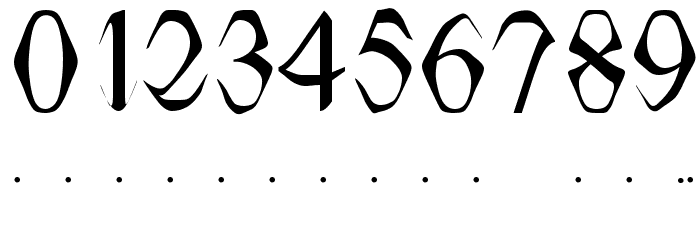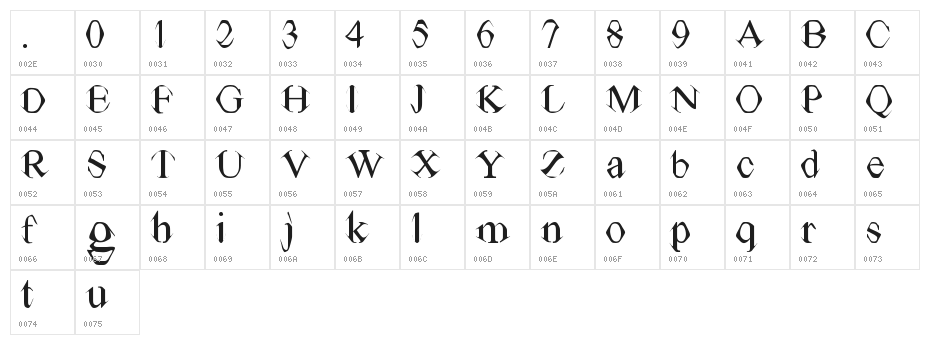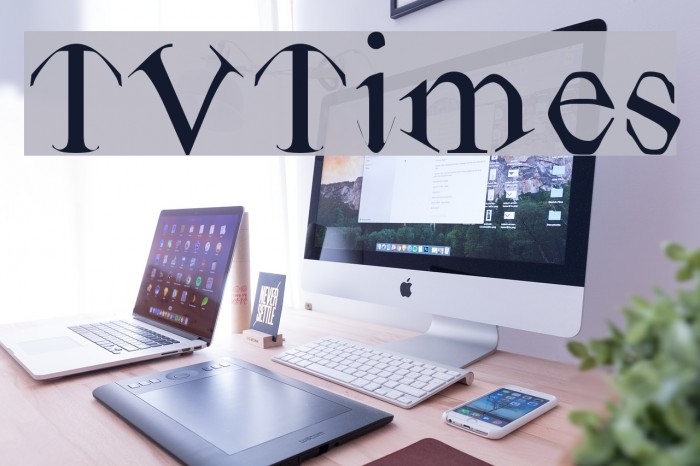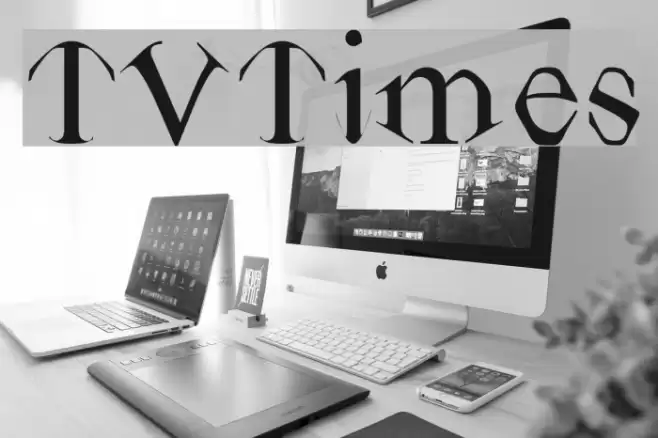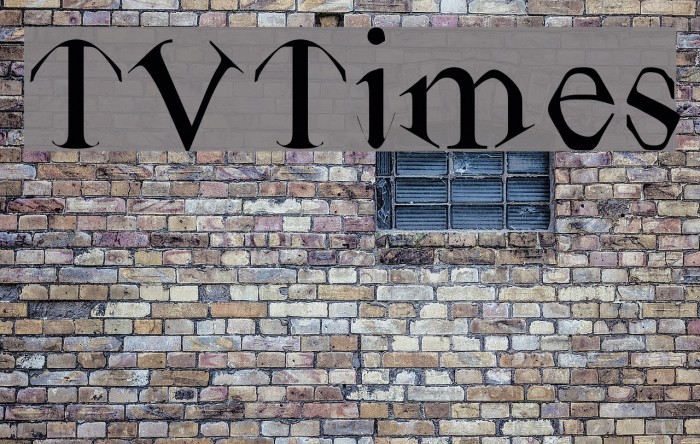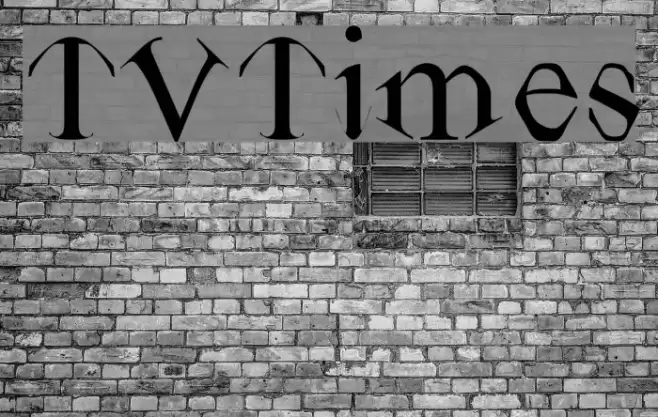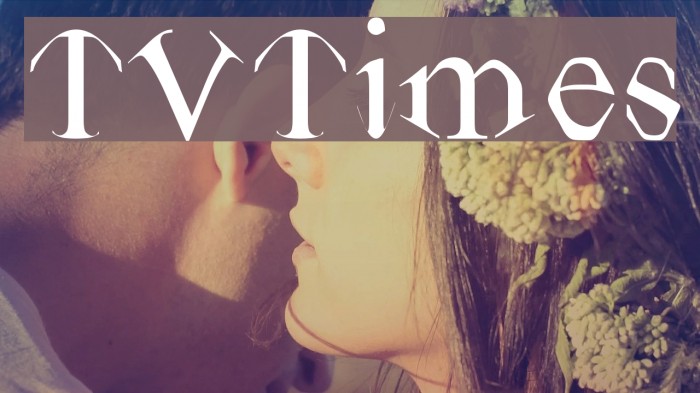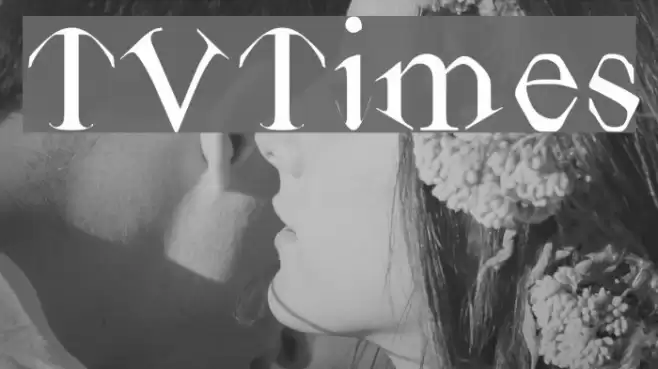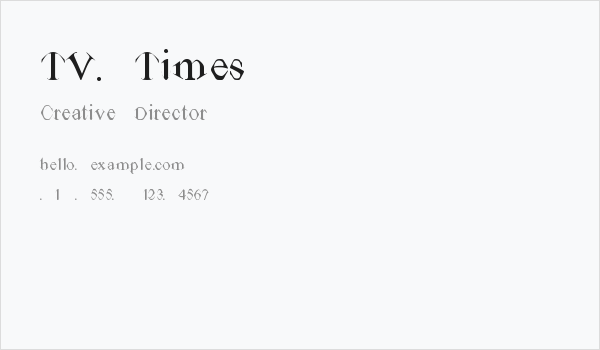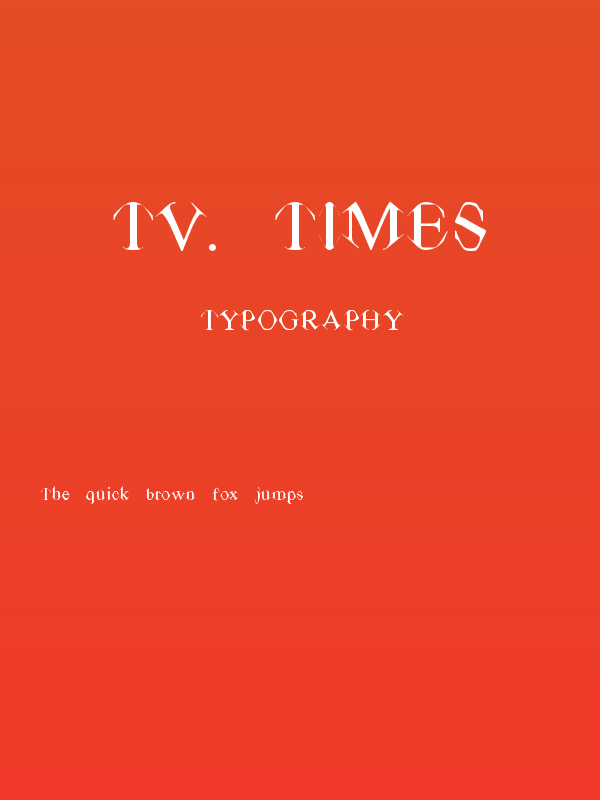
TV-Times Font
TV-Times Description
This font features a unique blend of modern and classic elements, characterized by its sharp, angular serifs and high contrast between thick and thin strokes. The uppercase letters exhibit a distinct elegance with their elongated forms and pointed edges, while the lowercase letters maintain a consistent style with slightly more rounded curves. The numerals are bold and easily readable, complementing the overall aesthetic. The special characters are designed to match the font's sharp and sophisticated style, making it suitable for a variety of applications.